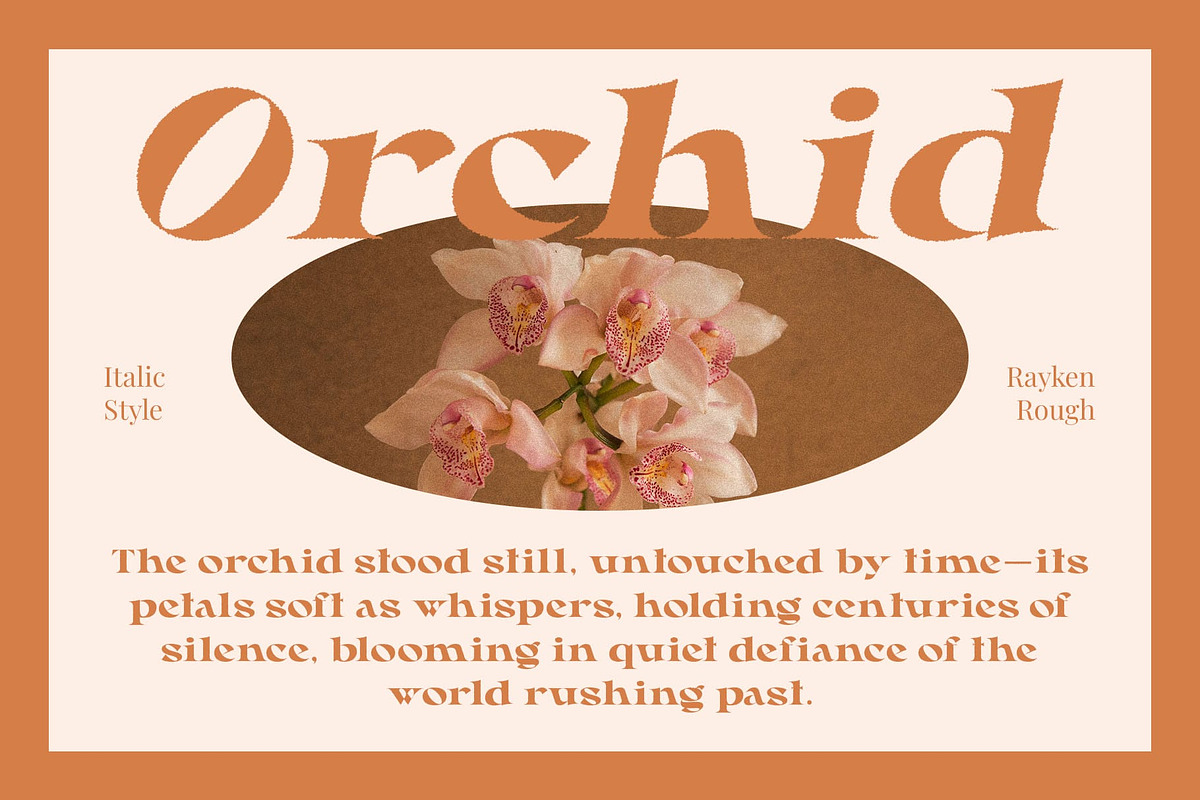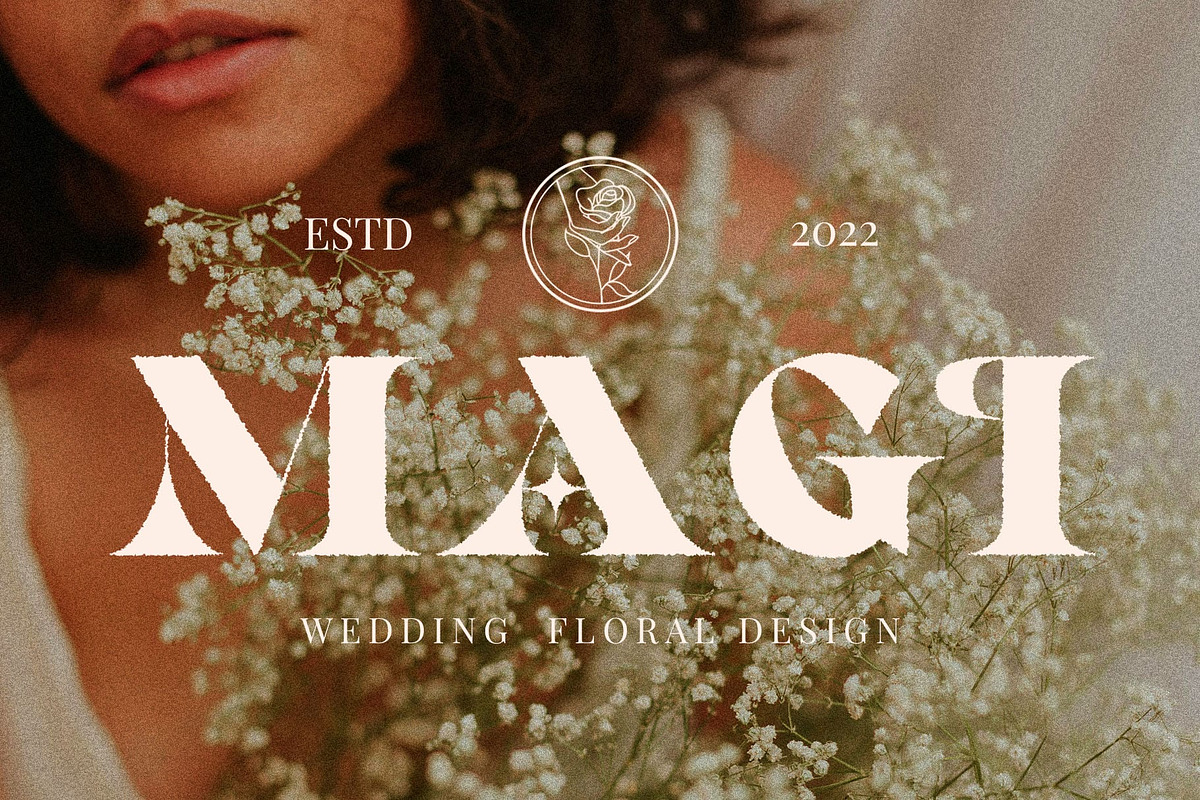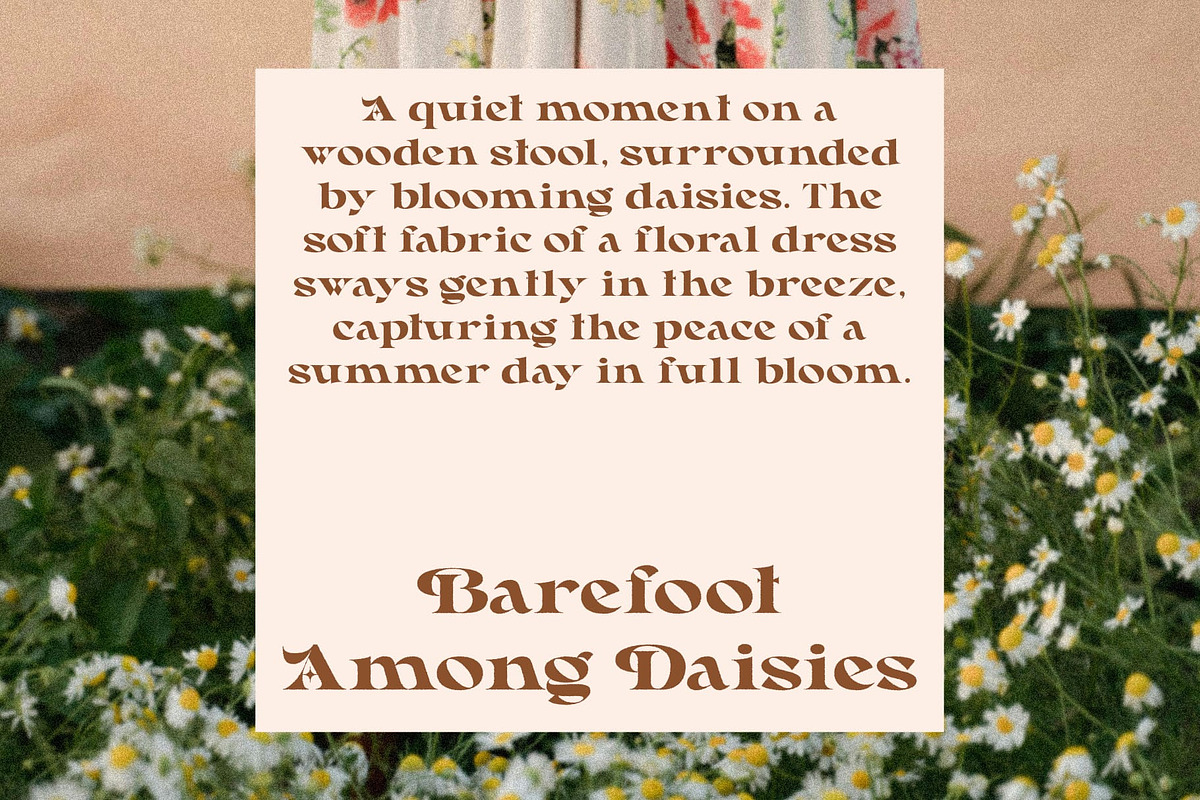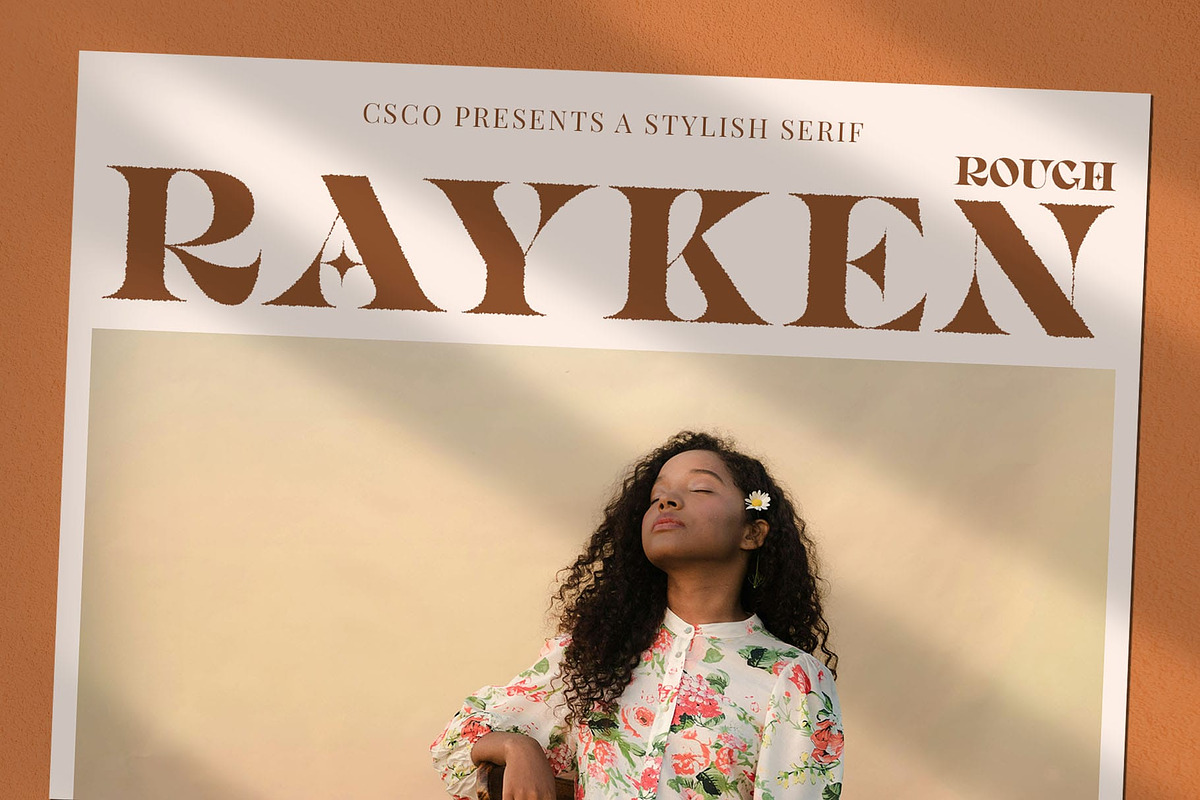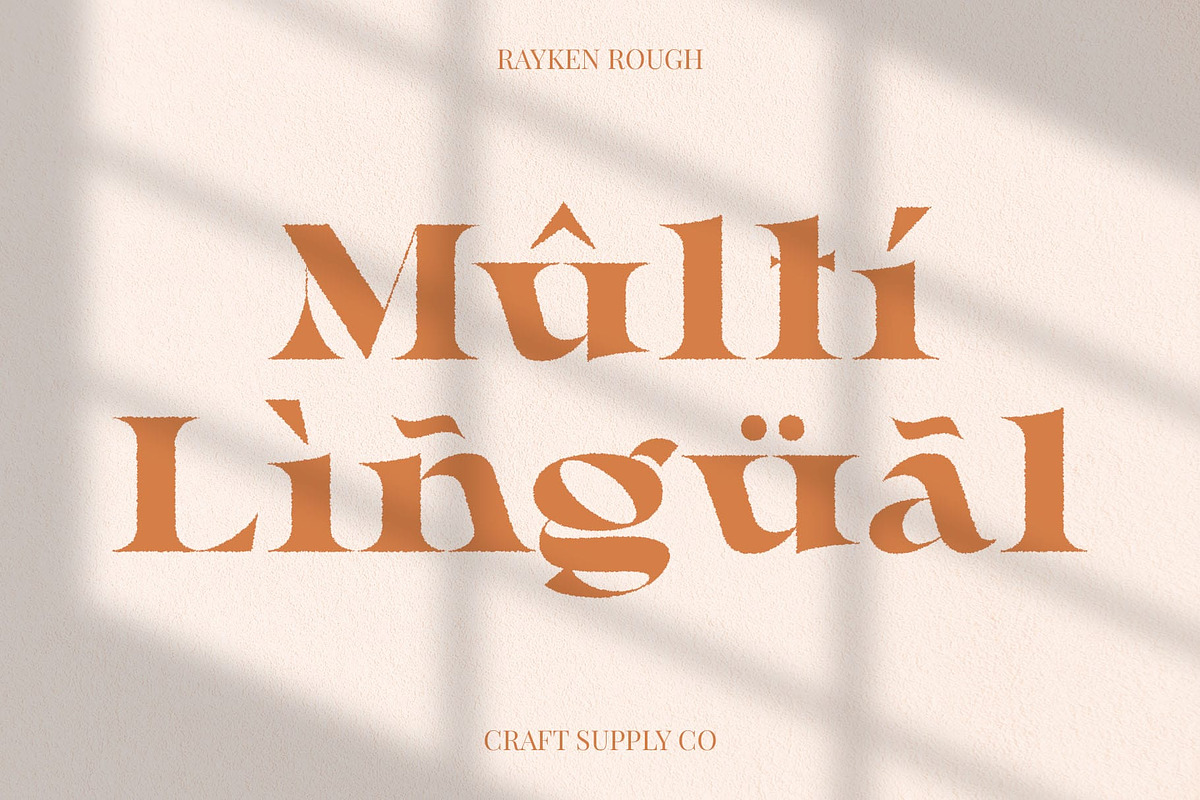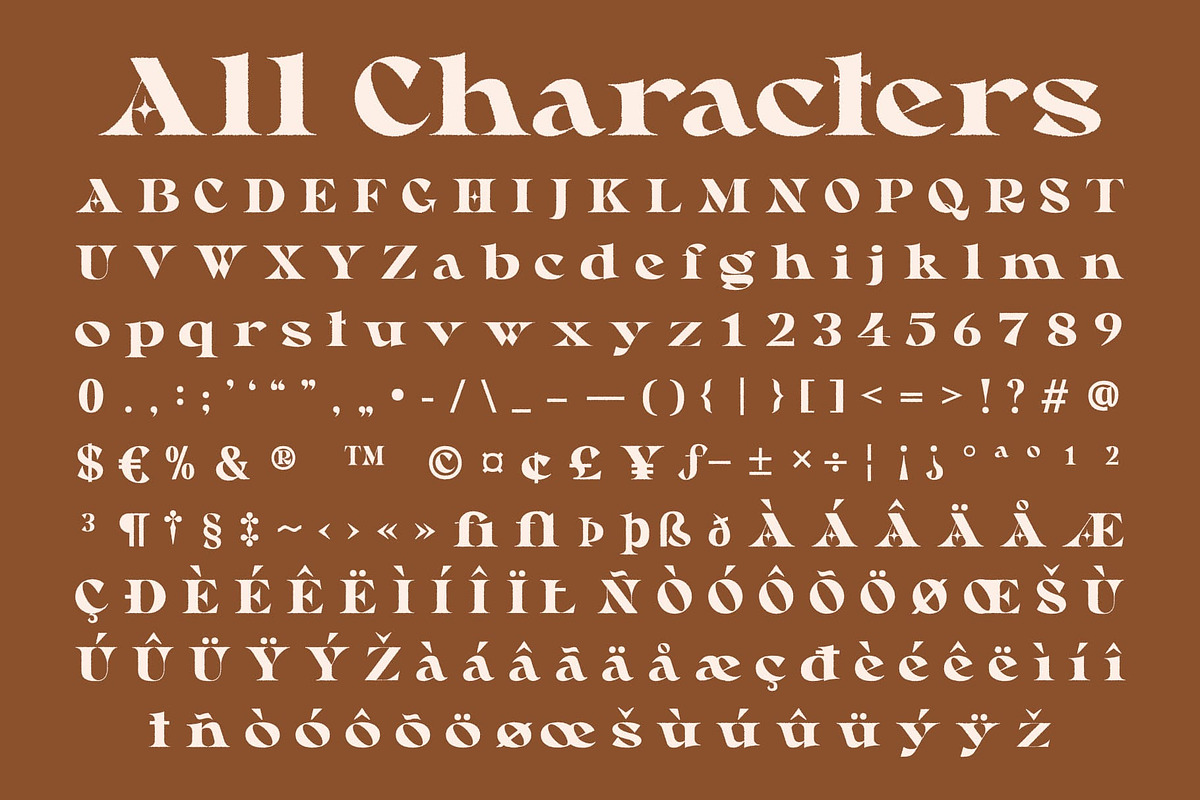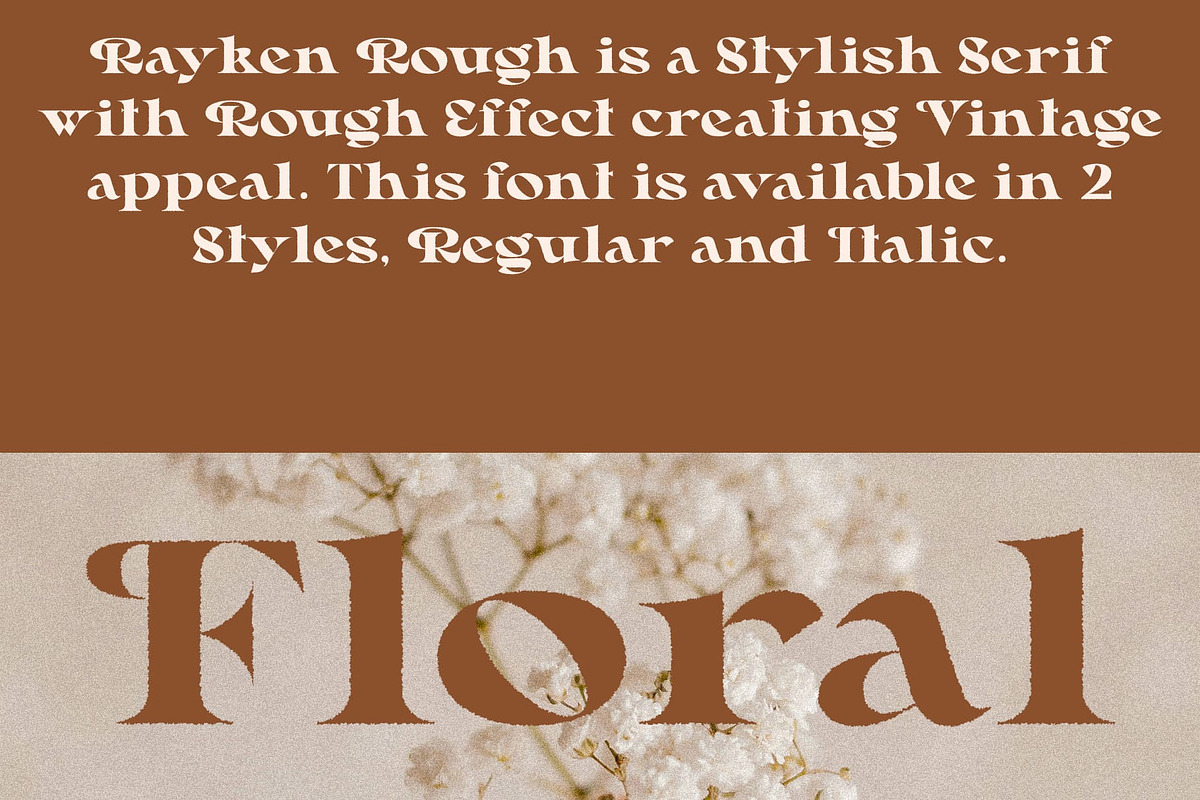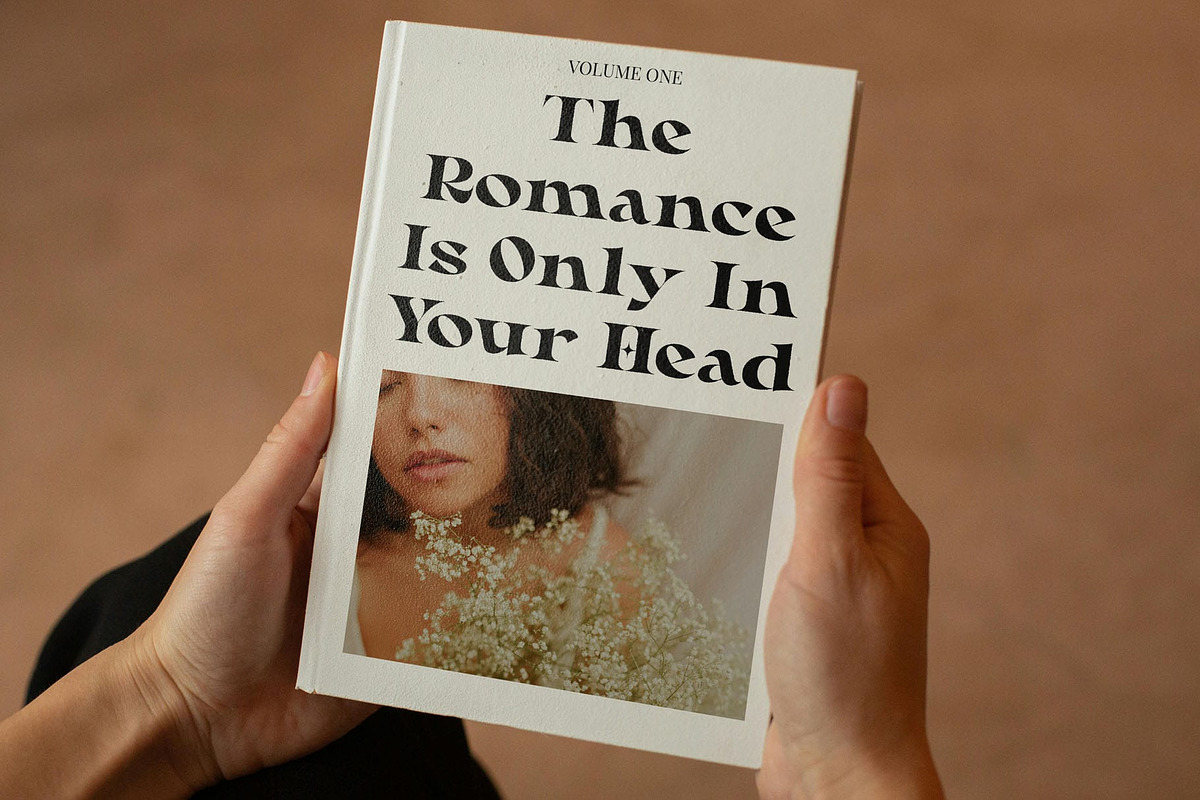
Rayken Rough
Rayken Rough Font – Refined Elegance with Artistic Texture
Contemporary Style with Graceful Forms Rayken Rough is a modern serif font designed with clean, stylish letterforms that express quiet sophistication. Its smooth curves and elegant proportions give it a graceful presence, ideal for visual compositions that seek a polished yet approachable look.
Delicate Serifs for a Refined Aesthetic The font’s delicate serif details and carefully sculpted shapes create a refined and timeless impression. Each letter is crafted with balance and harmony, offering a sense of beauty that feels both contemporary and classic—perfect for luxury branding, fashion labels, and high-end editorial design.
Rough Texture for Organic Charm A soft rough texture overlays the elegant form, adding an artistic, handcrafted quality that introduces warmth and character. This organic imperfection contrasts beautifully with the font’s clean structure, evoking a sense of depth, vintage appeal, and tactile charm.
Ideal for Bold and Beautiful Visuals Rayken Rough is perfect for designs that celebrate expressive beauty. From wedding invitations and fashion campaigns to branding projects with a refined edge, it combines the elegance of modern serif typography with an artistic, textured finish. Its bold character and graceful tone make it a standout choice for work that aims to be stylish, romantic, and full of personality.
- Rayken Rough Regular
- Rayken Rough Italic